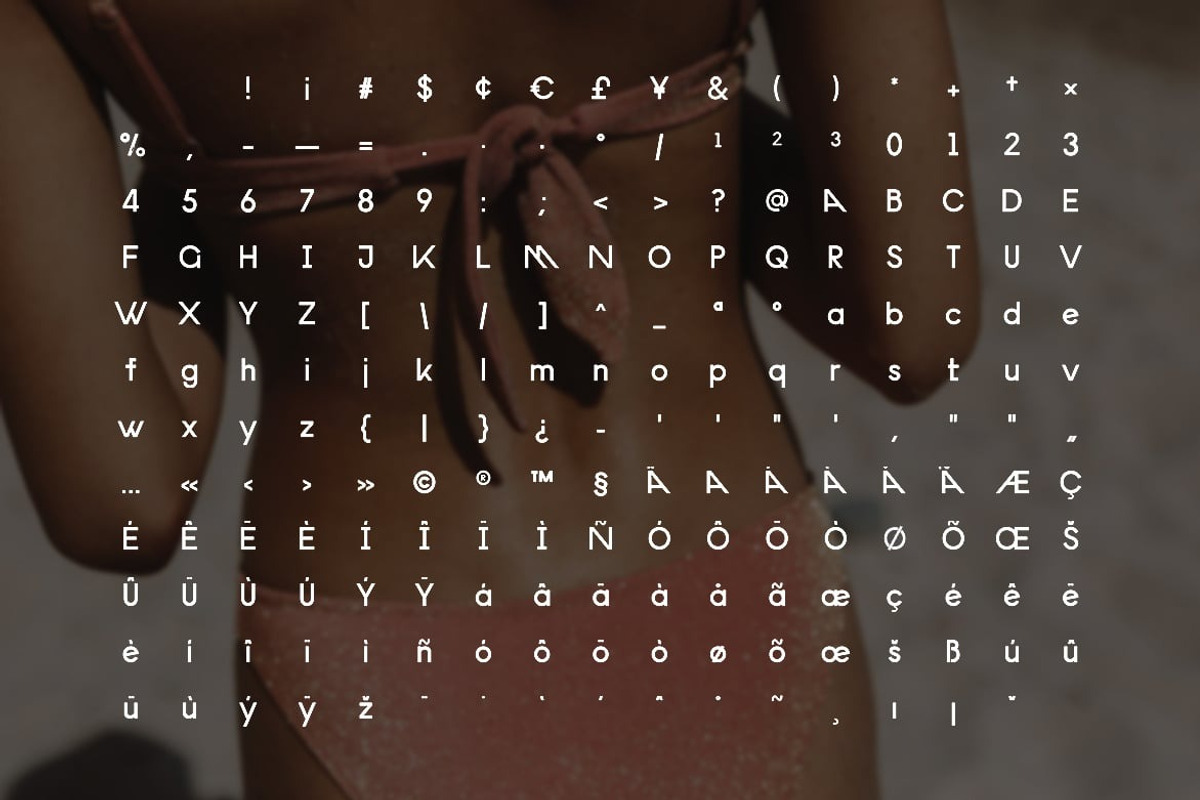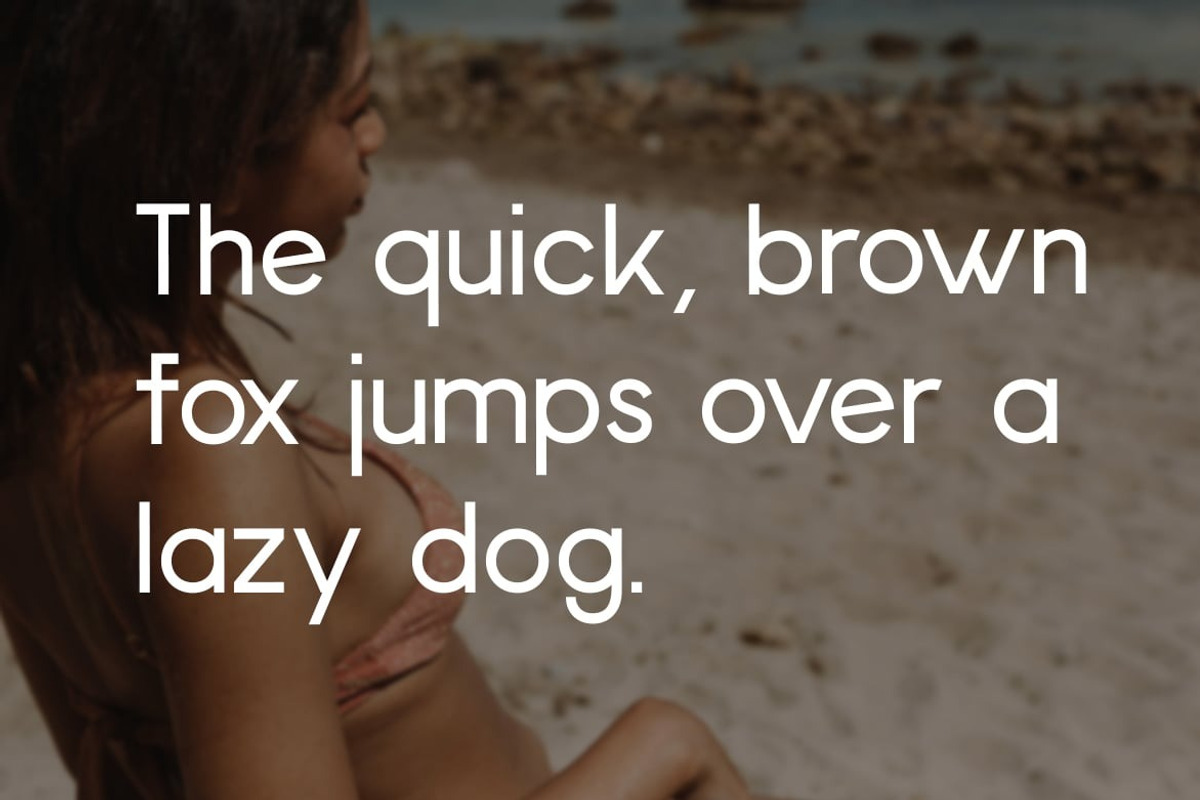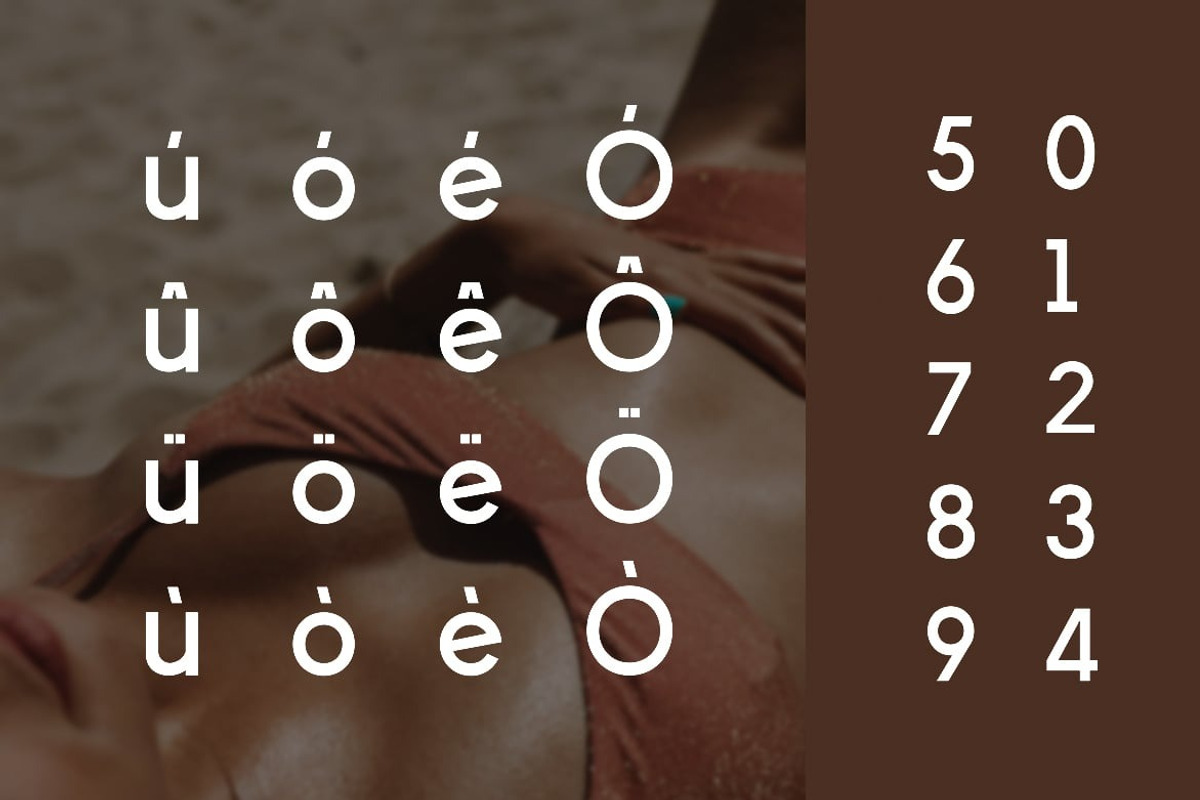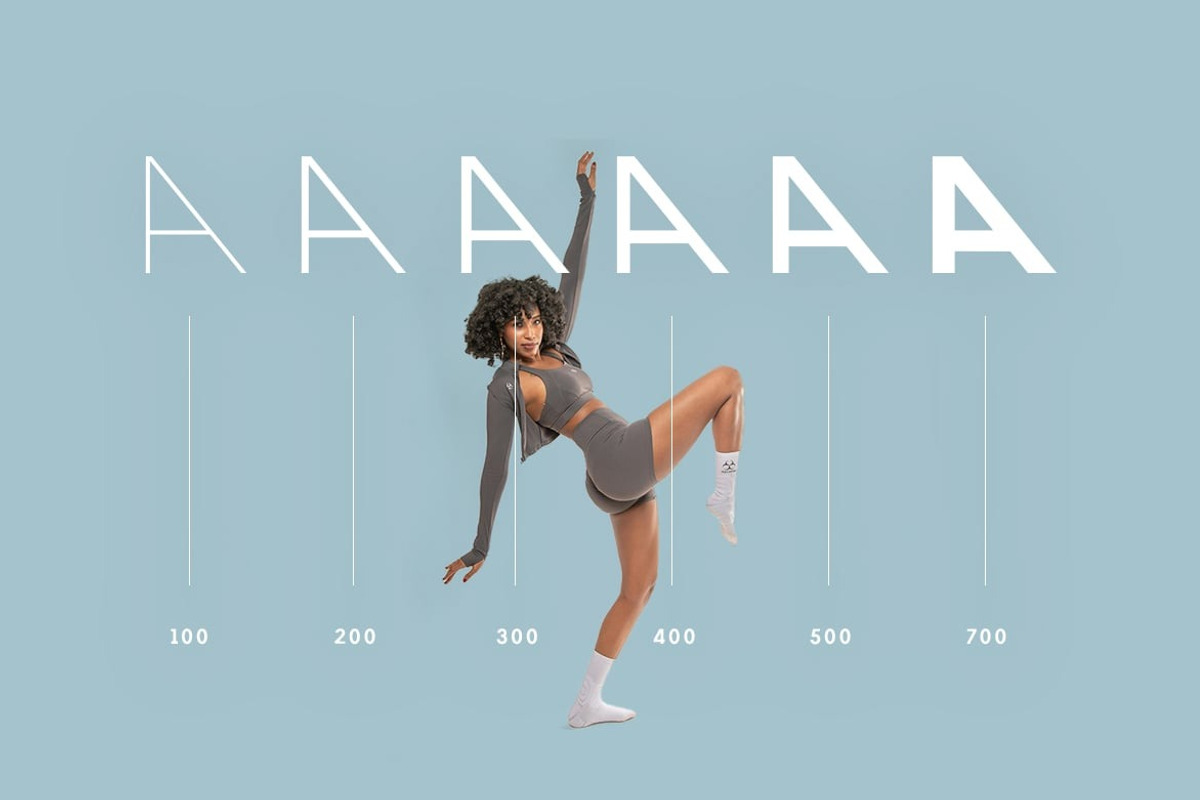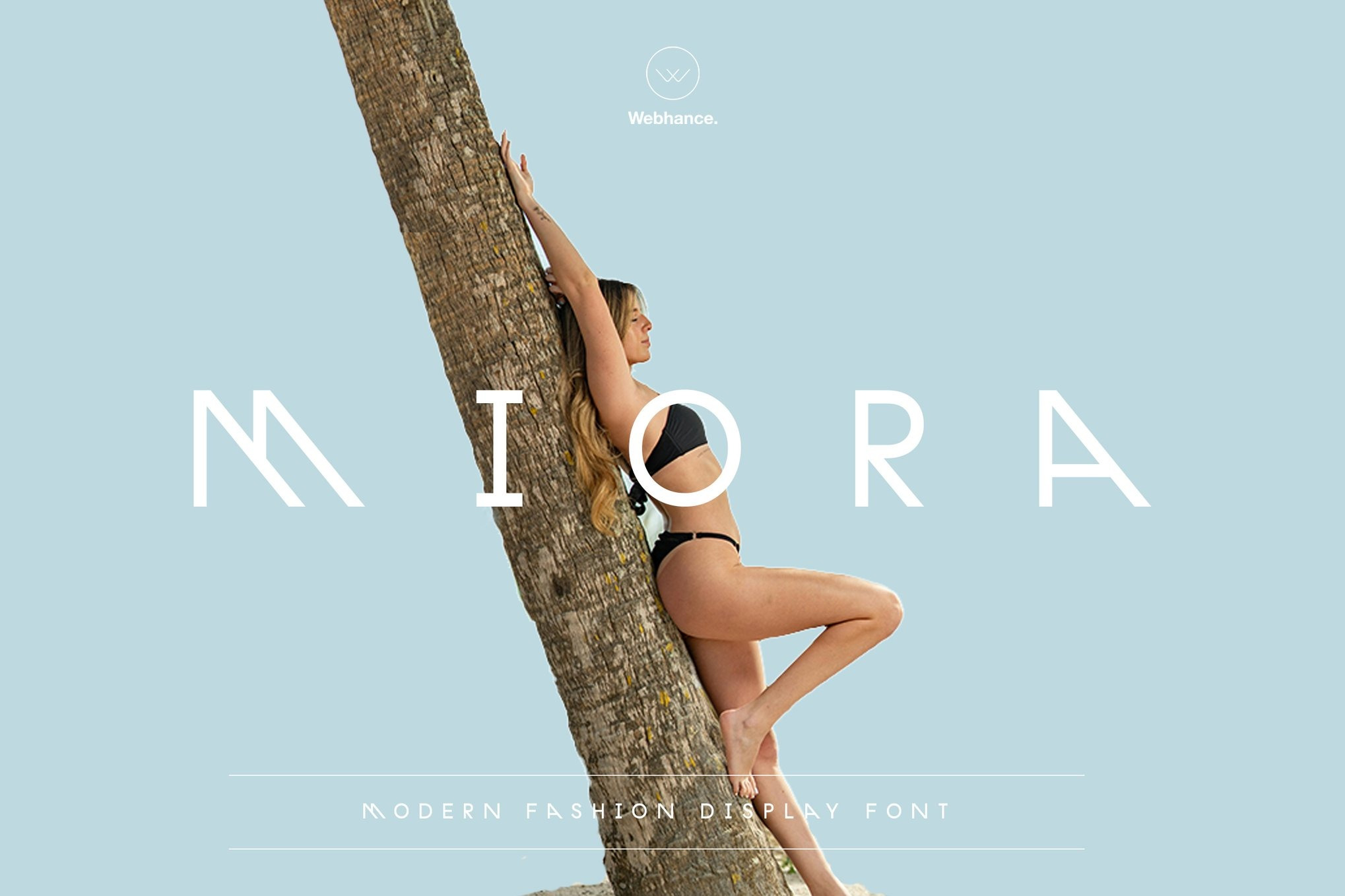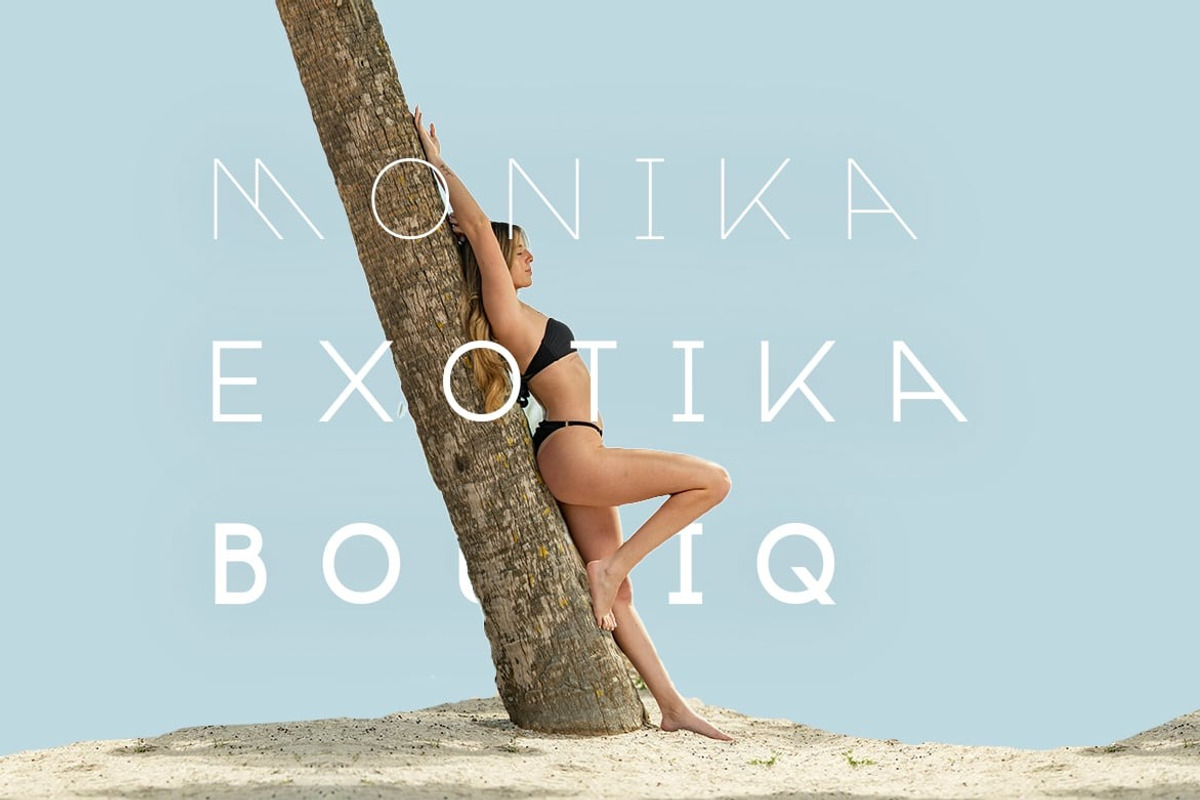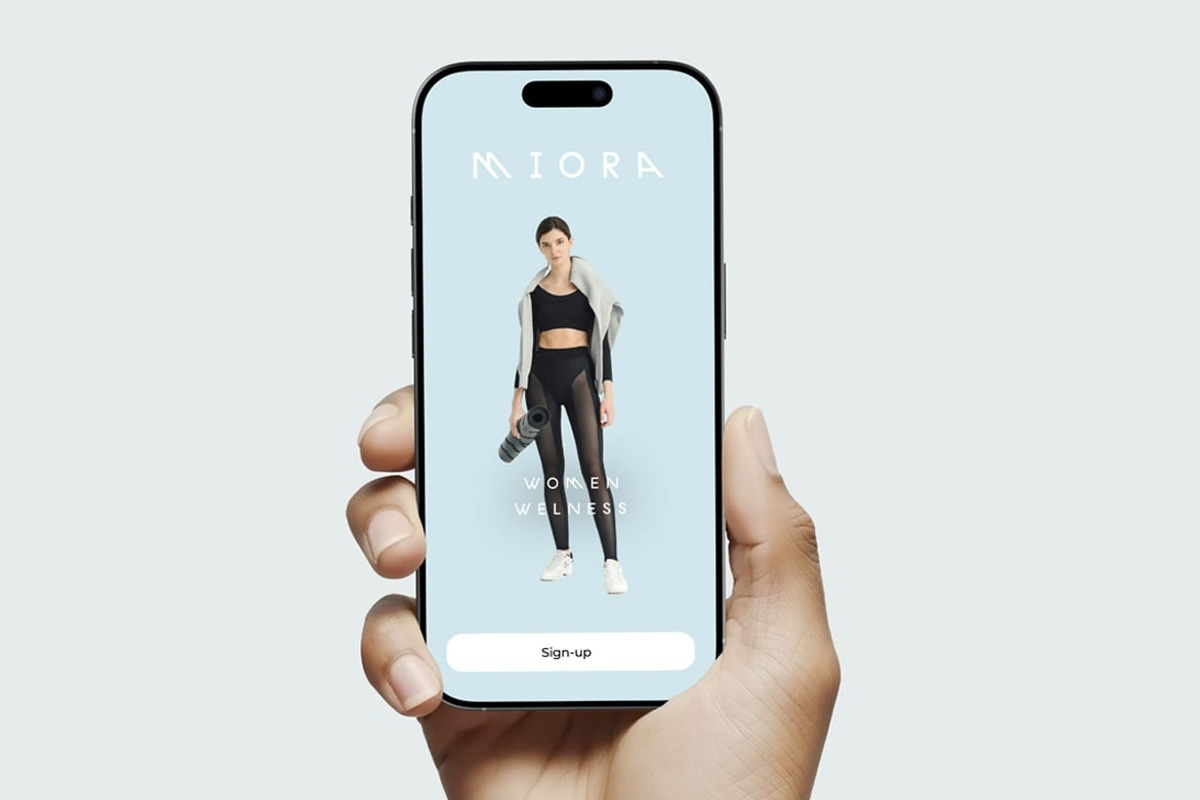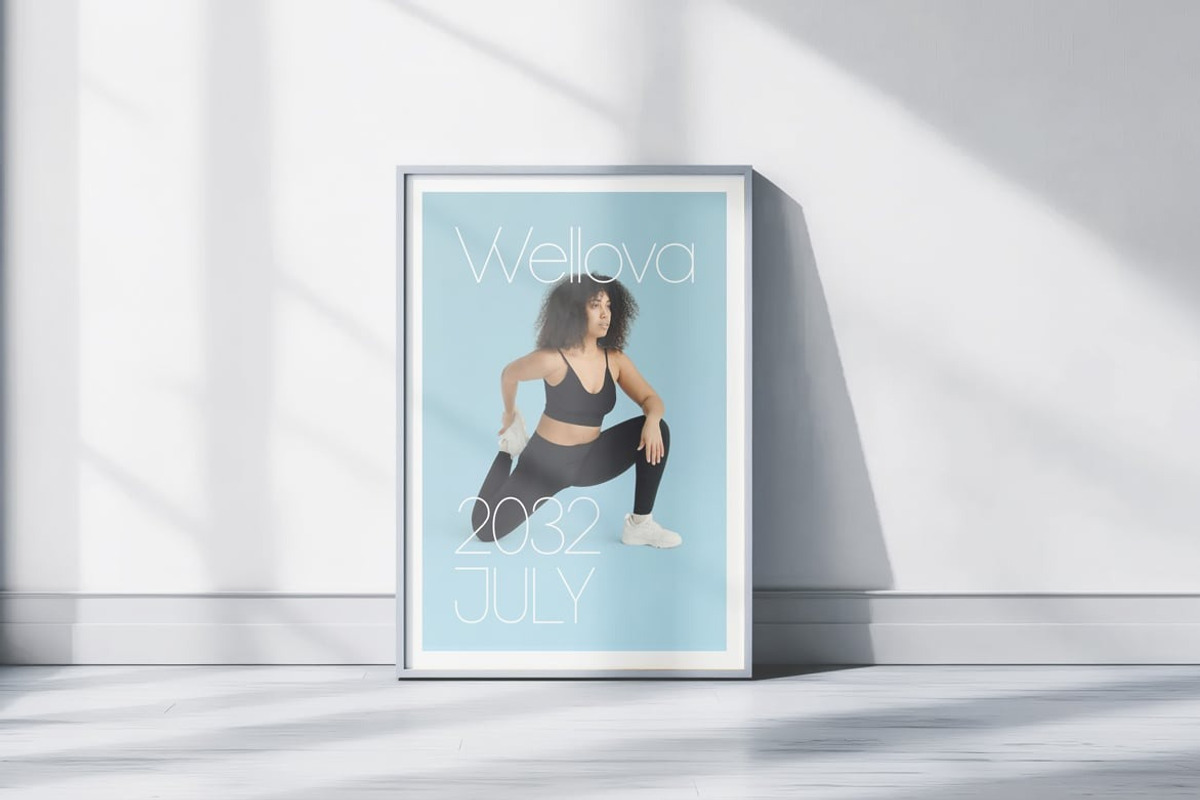
Miora Font Family — Modern Display
Miora is a modern typeface designed for visual clarity, minimal elegance, and expressive branding. Inspired by high-end beauty campaigns and wellness culture, Miora offers 6 elegant weights with matching italics , making 12 fonts in total, and supports over 100 languages. With its soft curves and clean cuts, Miora is ideal for packaging, mobile apps, editorials, and contemporary design schemes.
Multilingual police
capital letters
Lowercase letters
06 Weight
06 Italics
More than 200 glyphs